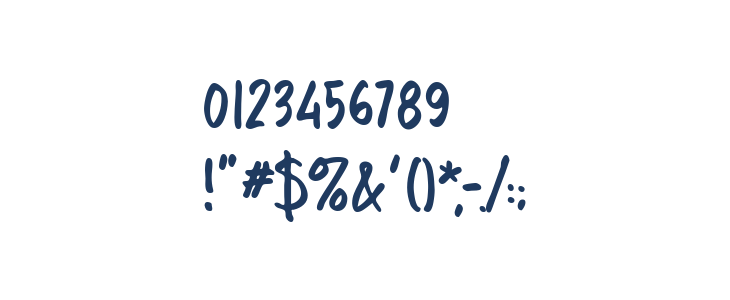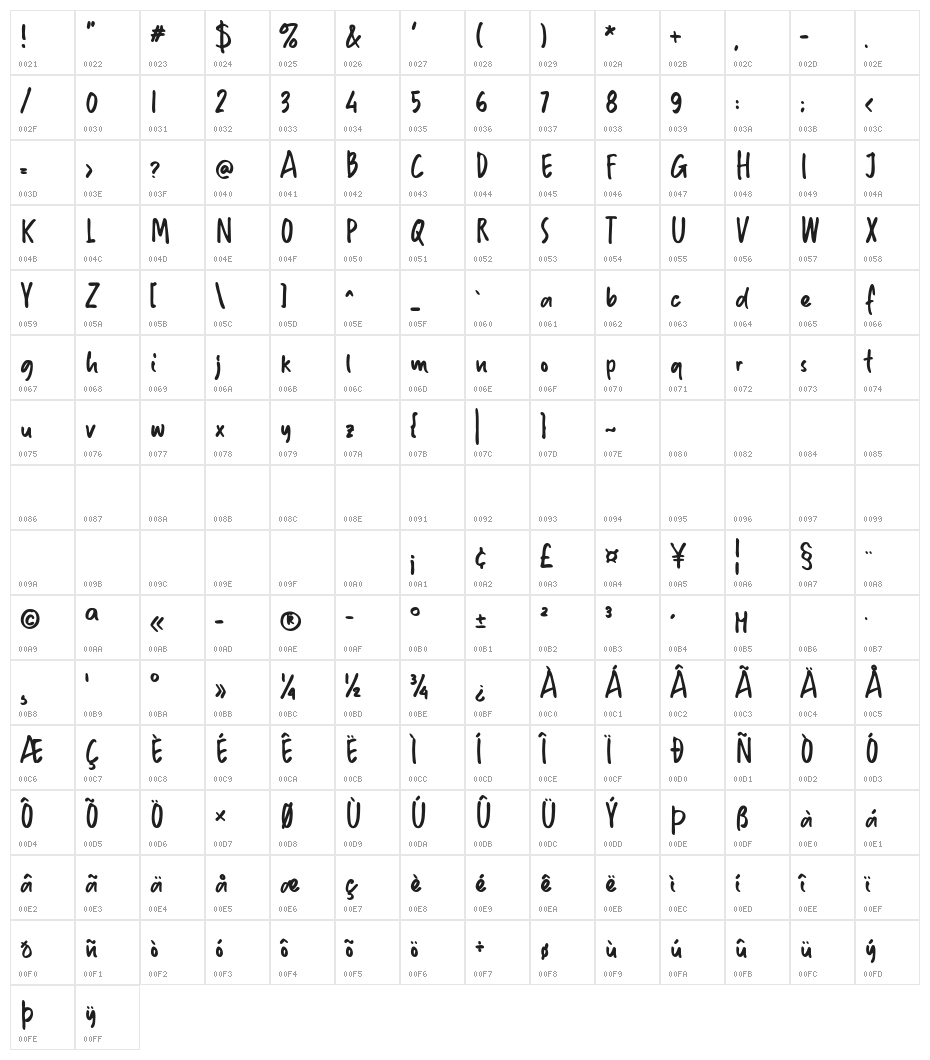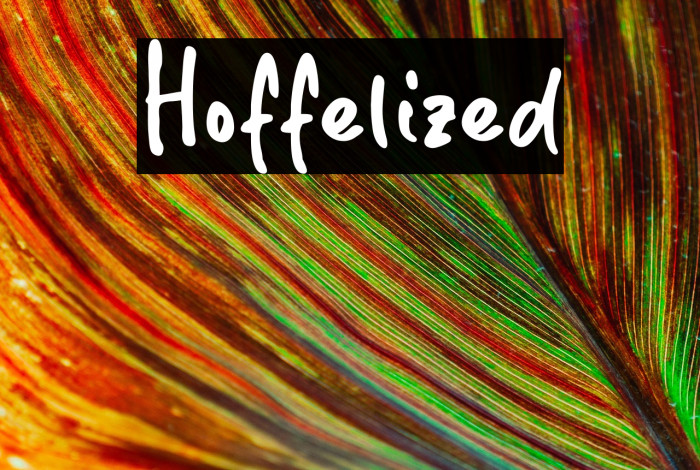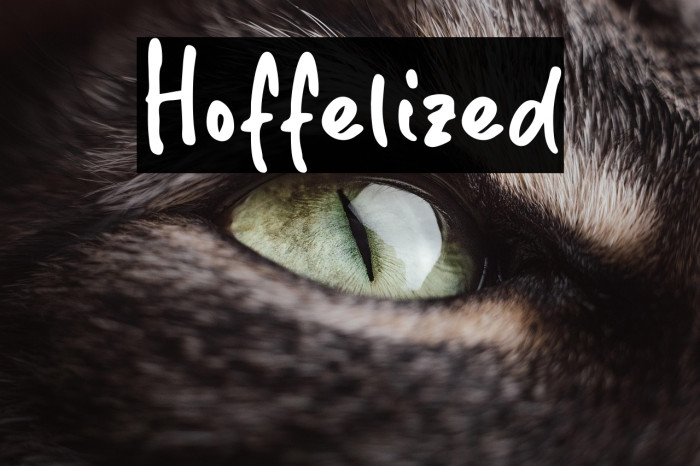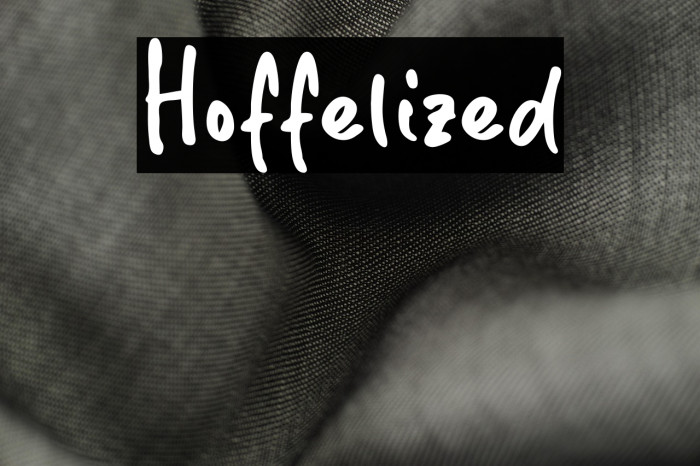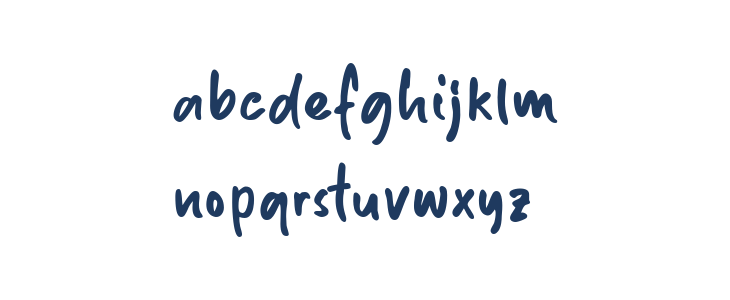
Hoffelized Font
Hoffelized Description
This font features a playful and casual handwritten style, characterized by its uneven strokes and organic flow. The letters have a natural, slightly irregular appearance, giving them a friendly and approachable feel. The uppercase letters are bold and prominent, while the lowercase letters maintain a consistent style with a touch of whimsy. The numerals and special characters complement the overall look, maintaining the same hand-drawn aesthetic. This font is versatile, suitable for projects that require a personal touch or a relaxed vibe.
| Use Case | Logos, Headlines, Informal Text |
| Proposed Projects | Ideal for greeting cards, invitations, personal branding, and social media graphics. |